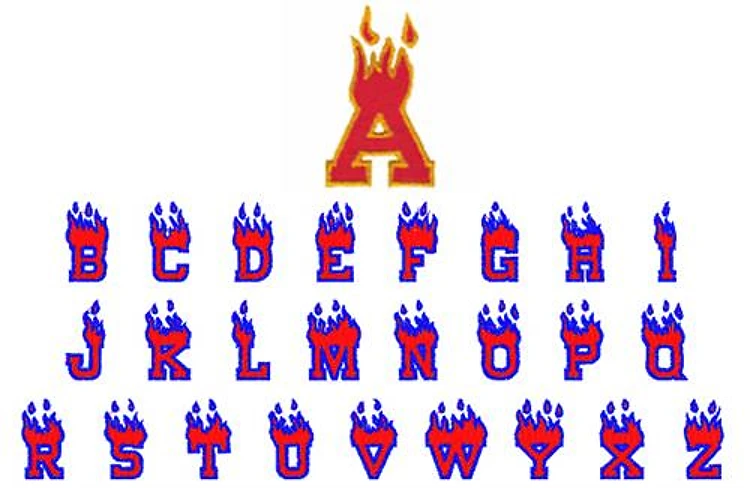
Great Notions is happy to present FLAME ALPHABET Embrilliance machine embroidery font which has Bold varsity applique embroidery font with a dynamic flame design, perfect for spirited apparel such as jackets and caps. Available in BX font and Embrilliance formats. included. If you would like to view more embroidery fonts and alphabets please search our embroidery fonts page.